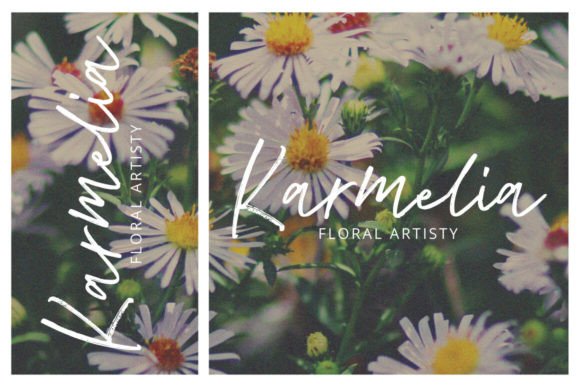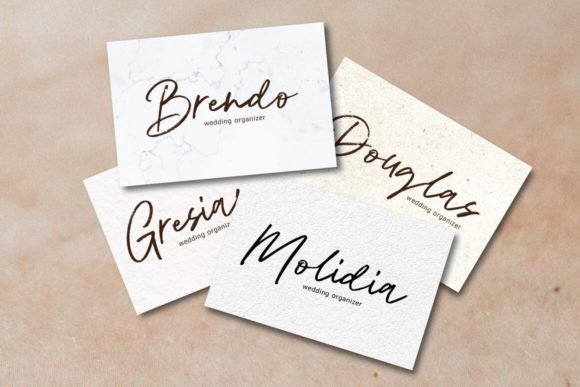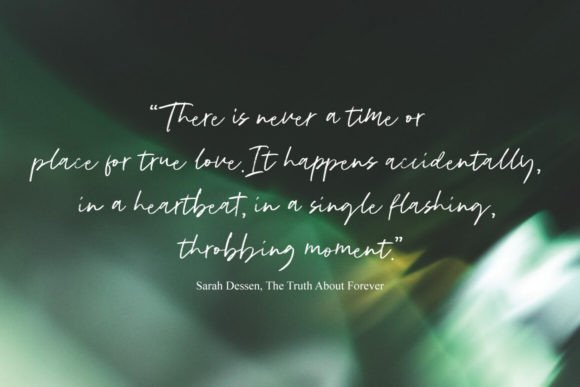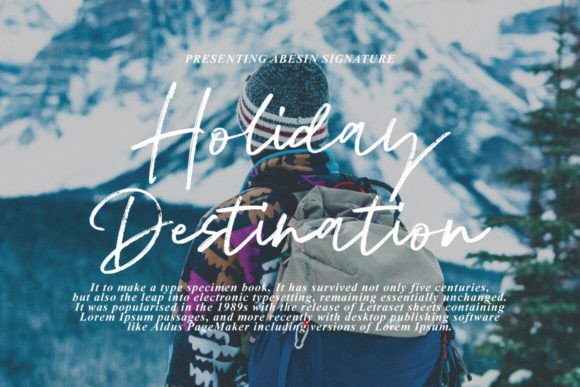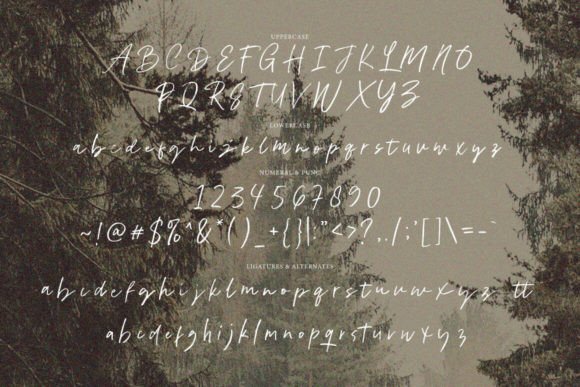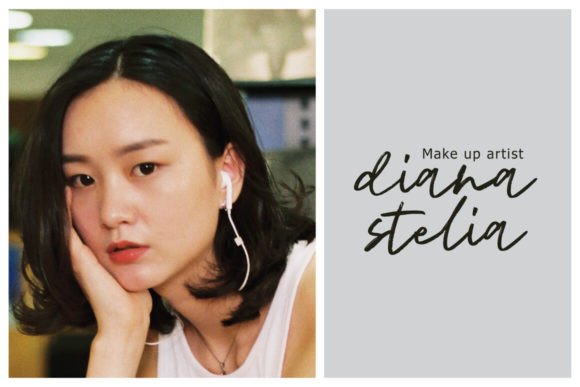
Introducing Abesin Font: A Handmade Signature Style Masterpiece
Are you a designer or crafter looking for a unique and elegant font to elevate your creative projects? Look no further than Abesin Font, a stunning signature font that exudes handmade charm and sophistication. With its decorative characters, dancing baseline, and extensive Open Type features, Abesin Font is perfect for a wide range of applications, from invitation designs to branding materials, business cards, quotes, posters, and more.
A Beautifully Crafted Font with Endless Possibilities
Abesin Signature boasts a beautiful, handmade signature style that is sure to capture the attention of your audience. The font comes with an impressive 130+ glyphs, offering a vast array of alternative characters to help you create unique and eye-catching designs. Whether you’re designing a wedding invitation, a business card, or a poster, Abesin Font provides the perfect combination of elegance and playfulness.
Open Type Features for Endless Creativity
Abesin Font is an ideal choice for designers and crafters looking to add a touch of elegance and sophistication to their projects. Whether you’re creating digital designs or handmade crafts, this font provides the perfect combination of style and versatility. Here are just a few ways you can use Abesin Font to elevate your designs:
- Invitations and Greeting Cards: Create beautiful, one-of-a-kind invitations and greeting cards that showcase your creativity and attention to detail.
- Branding Materials: Use Abesin Font to create eye-catching branding materials, such as business cards, letterheads, and brochures.
- Quotes and Posters: Add a touch of elegance to your quotes and posters with Abesin Font’s decorative characters and dancing baseline.
- Digital Designs: Use Abesin Font in your digital designs, such as social media graphics, blog posts, and website headers.